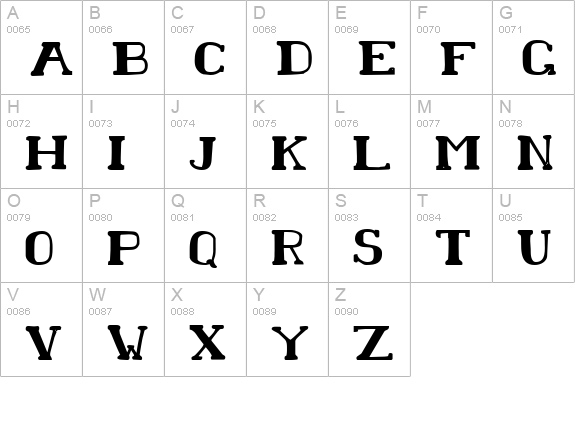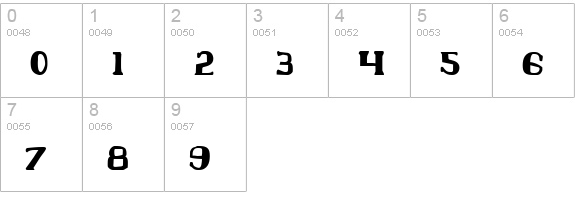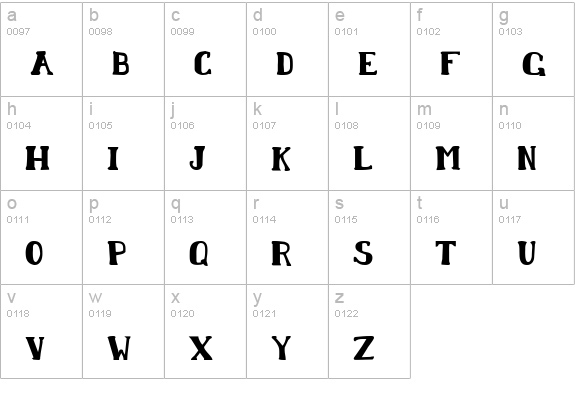
Chardin Doihle Bold is a strong, high-contrast variant in the Chardin typeface family \xE2\x80\x94 well suited to headlines, attention-grabbing titles, and strong calls-to-action.
Chardin Doihle Bold font is a modern and stylish typeface that exudes confidence and sophistication. Its bold and strong letterforms make a statement while maintaining a sense of elegance. Perfect for headings, titles, and other design projects that require a touch of flair and personality. What sets Chardin Doihle Bold font apart is not only its striking appearance but also the fact that it is available for free download at FontsMarket.com. This means that you can easily access this versatile and eye-catching font without any cost, making it a valuable addition to your font library. Whether you're working on branding, advertising, or any creative project, Chardin Doihle Bold font is sure to elevate your designs and leave a lasting impression. Download it today and let your creativity shine with this exceptional typeface.